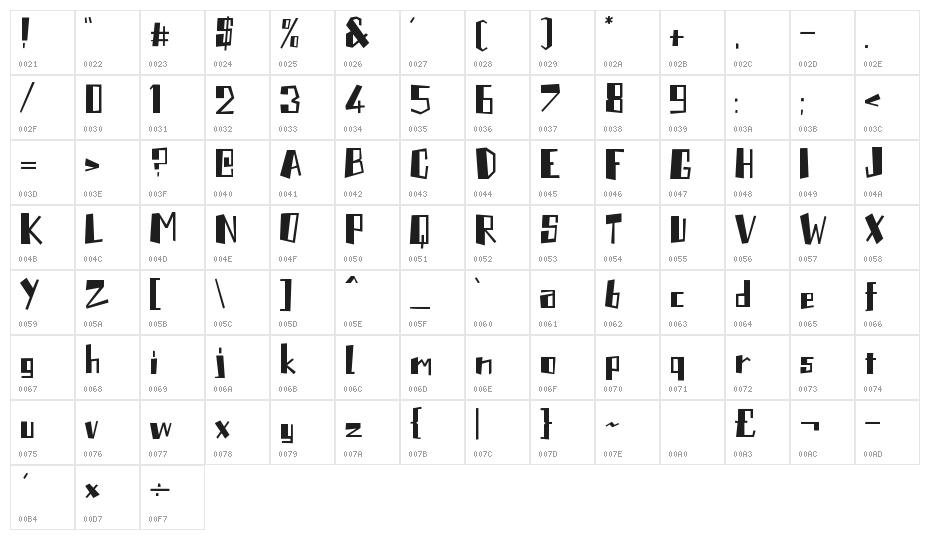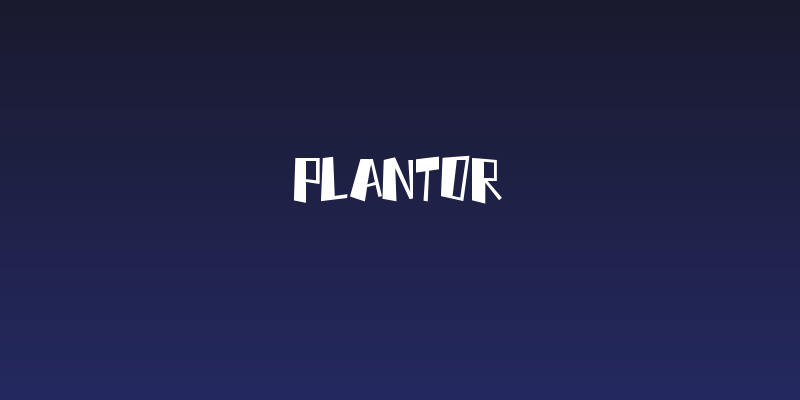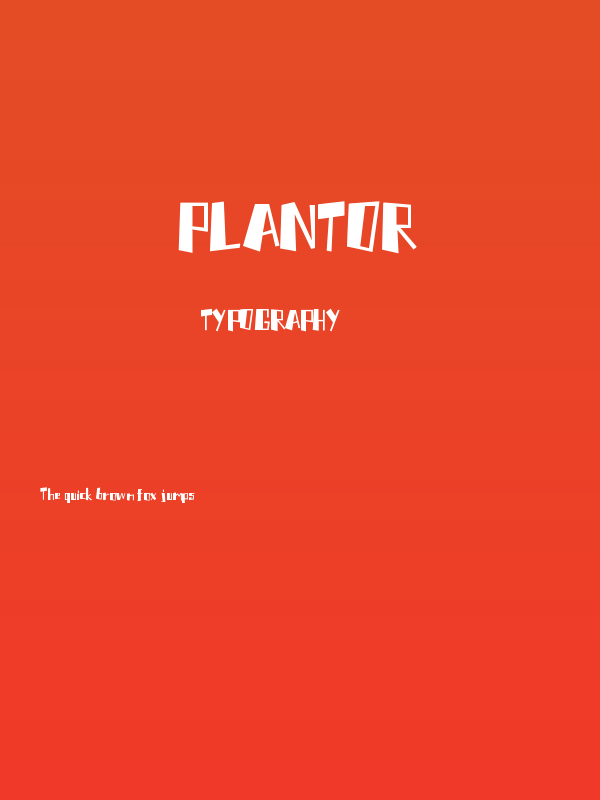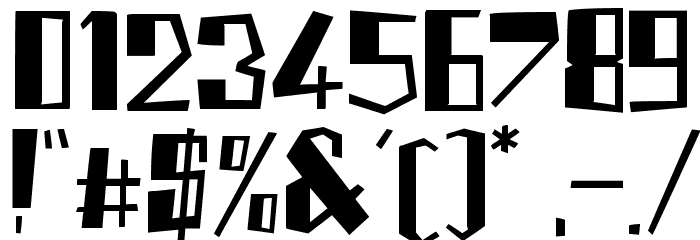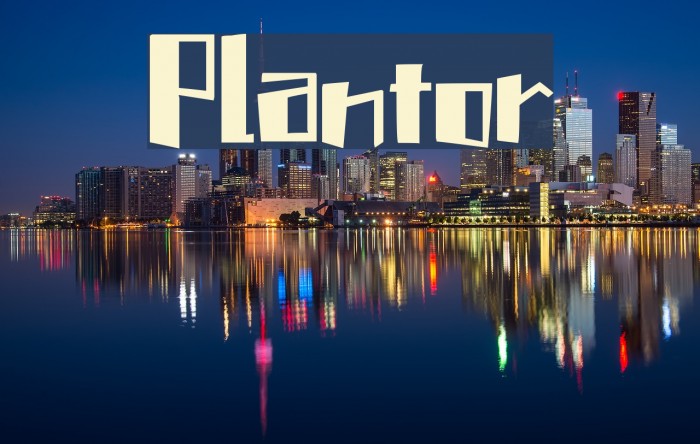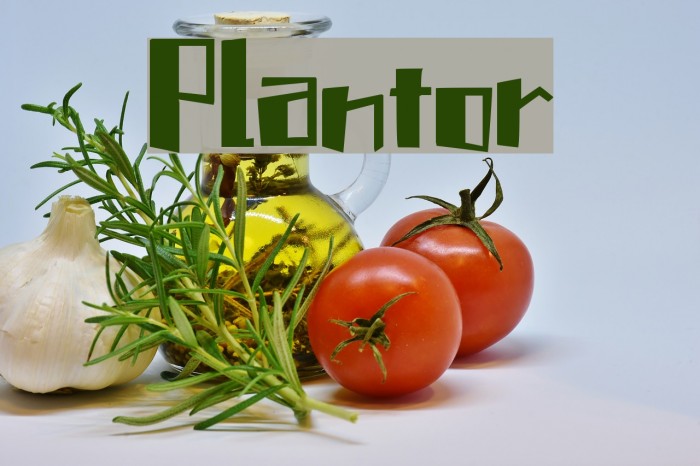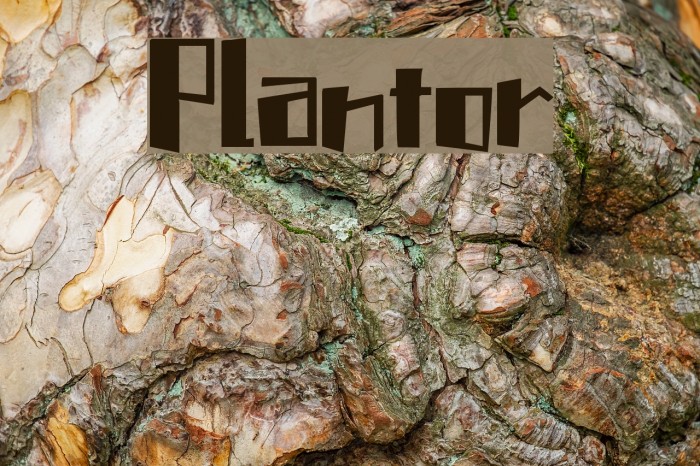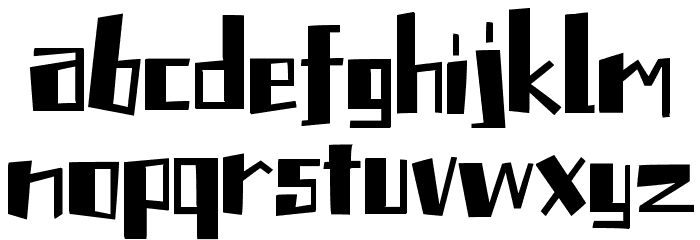
Plantor Font
Plantor Description
This font features a bold and dynamic style with a geometric and angular design. Each character is crafted with sharp edges and varying widths, giving it a unique and modern appearance. The uppercase letters are particularly striking, with a strong presence that commands attention. The lowercase letters maintain the same angular aesthetic, providing consistency across the font. Numbers and special characters are equally bold, ensuring readability and impact. This font's distinctive style makes it ideal for projects that require a contemporary and edgy look.
| Proposed Projects | Ideal for modern branding, poster design, album covers, and any project needing a bold, contemporary aesthetic. |